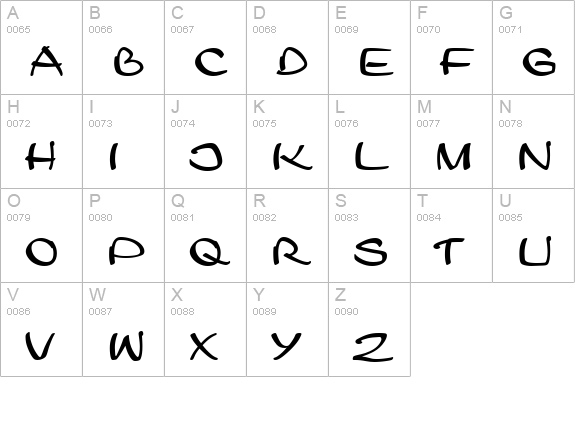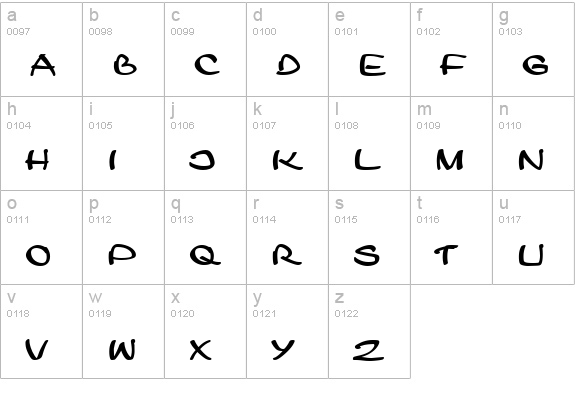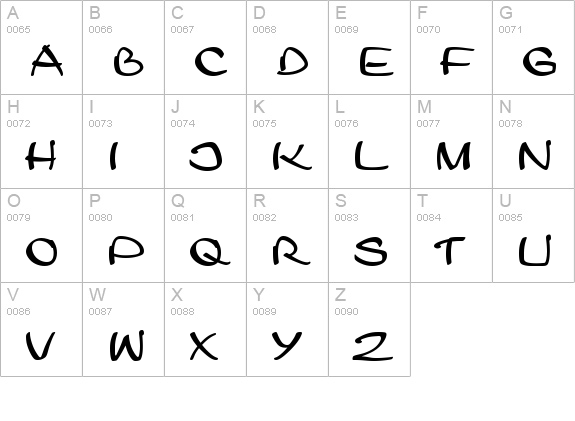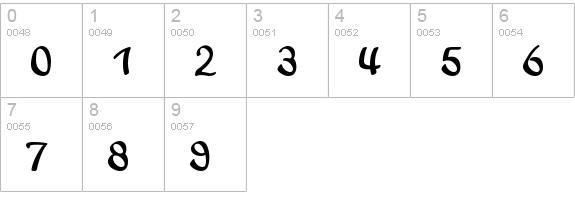
LegerD Font Details
Introducing LegerD, a remarkable font that effortlessly combines elegance and modernity. This font exudes a sense of sophistication and refinement, making it the perfect choice for any design project that requires a touch of class. LegerD features clean, crisp lines and beautifully balanced letterforms, creating a harmonious visual experience. Its versatile nature allows it to be used in a variety of contexts, whether it be for branding, editorial design, packaging, or web design. With its timeless appeal, LegerD is sure to make a lasting impression on your audience. What sets LegerD apart is not just its stunning aesthetics, but also its accessibility. We believe that great design should be available to everyone, which is why LegerD is freely available to download at FontsMarket.com. This means that you can incorporate this remarkable font into your projects without any financial constraints. Whether you're a professional designer or an enthusiastic amateur, LegerD empowers you to create captivating visuals that leave a lasting impact. Its wide range of weights and styles gives you the flexibility to experiment and find the perfect fit for your unique vision. Don't miss out on the opportunity to elevate your designs with LegerD. Download this exquisite font for free at FontsMarket.com and unlock a world of possibilities for your creative endeavors. Let LegerD be your trusted companion in crafting stunning designs that captivate and inspire.